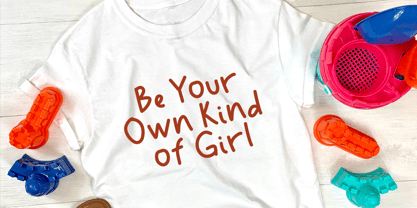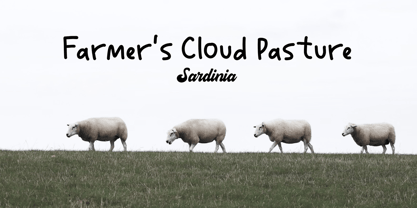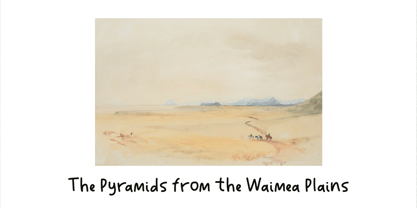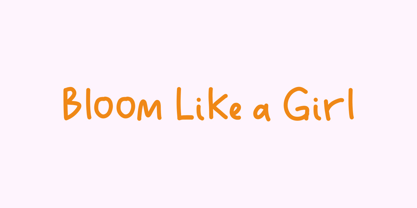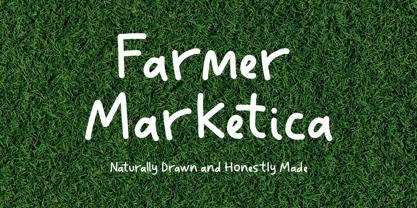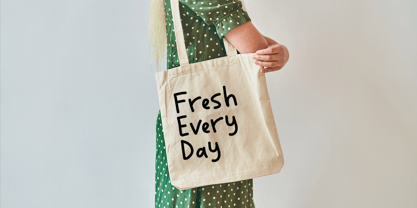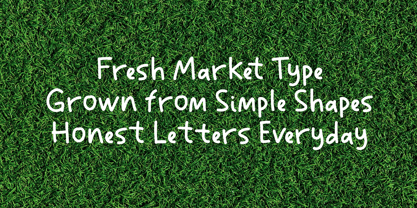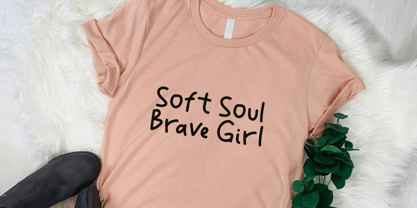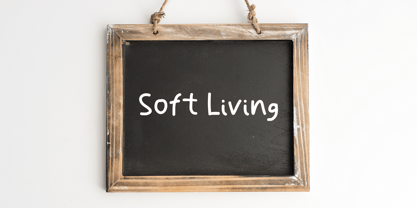
Farmer Marketica
The Farmer Marketica Font Family was designed by Rizal Aiyub and published by Fontysia. Farmer Marketica contains 1 styles. More about this family
Farmer Marketica is a natural hand-drawn font with an organic, imperfect feel that captures warmth, creativity, and a personal touch. Its casual strokes make it ideal for friendly, artistic, and expressive designs. This font is perfect for Social media graphics, Children’s books, playful illustrations, invitations, canva projects, Posters, flyers, cricut, logos, teachers, goodnotes, Quotes, headings, planners and more! Thank You!